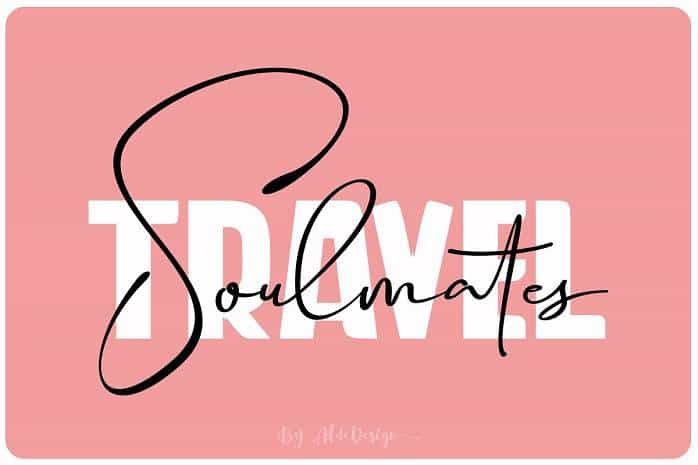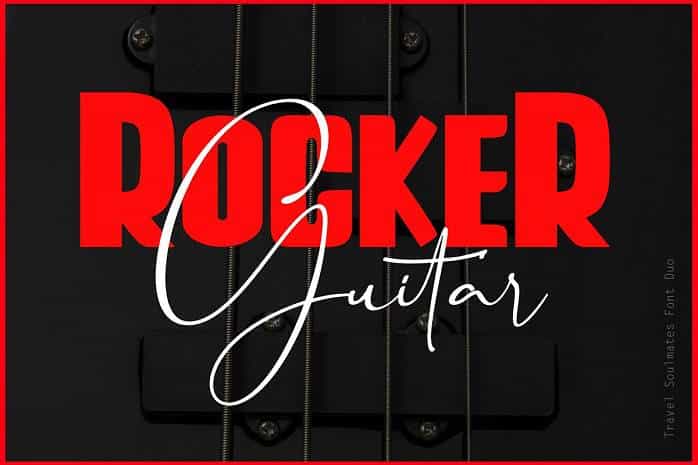
Introducing Travel Soulmates Font! Font Duo is a simple and classy taste looking font but with those signature and Weight (bold sans) variations, opentype features such as ligatures. Travel Soulmates is a good option also to add to watermarks on photos, signature or signature logo design, album cover, business card, quotes and many other design project.